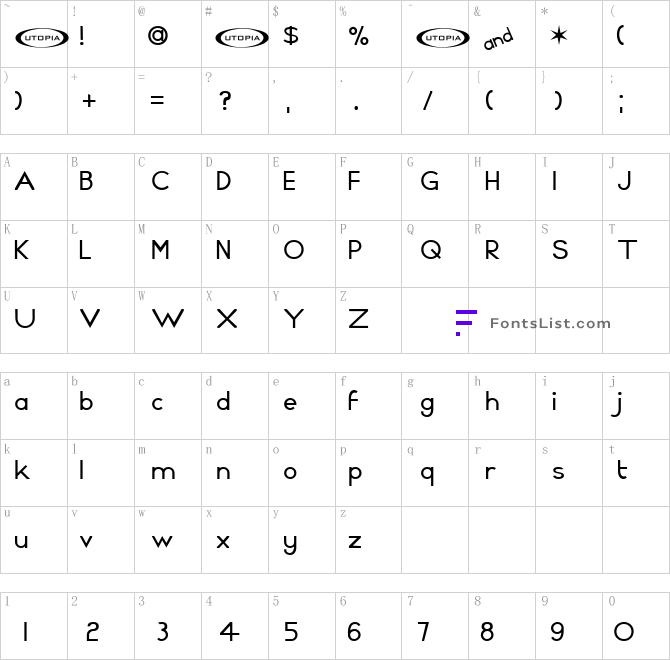
- Font Name:Azrael
Azrael.ttf is a very beautiful artistic font, Azrael.ttf is widely used in the design and printing of various books and pictures,Azrael.ttf has a strong visual impact,Azrael.ttf is a commonly used font in newspapers, magazines and books, and is used in posters, e-commerce Poster design, store design, logo design, font design and other fields.Azrael.